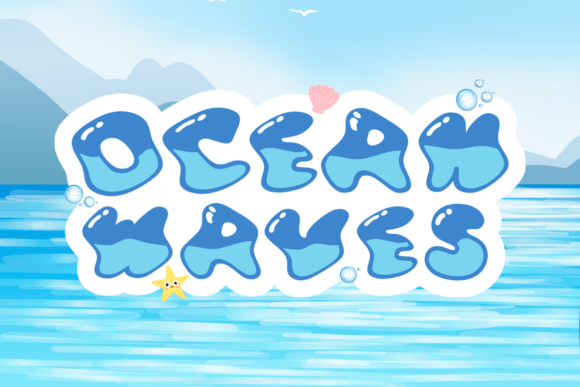
Ocean Waves Font
Ocean Waves is a display font that can add a playful and charming touch to any design with bubble and wavy styles. This font is perfect for a variety of design projects, including logos, quotes, and many more.